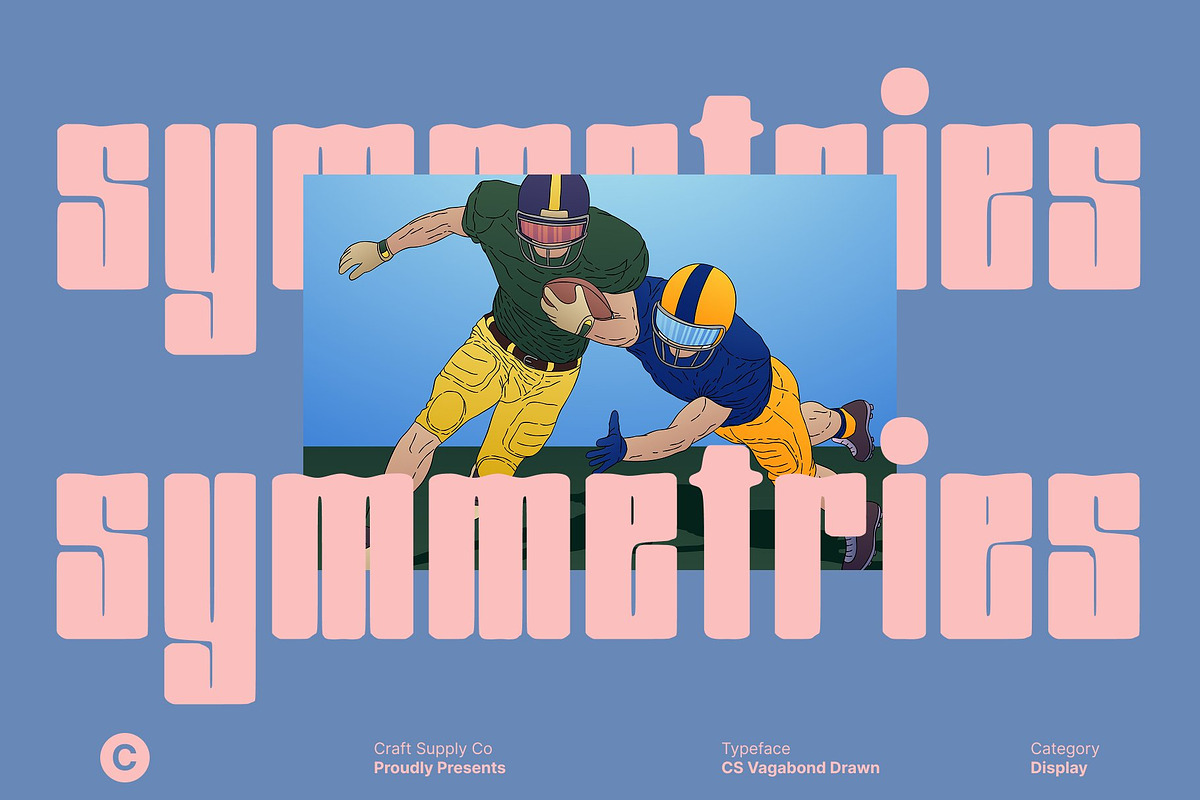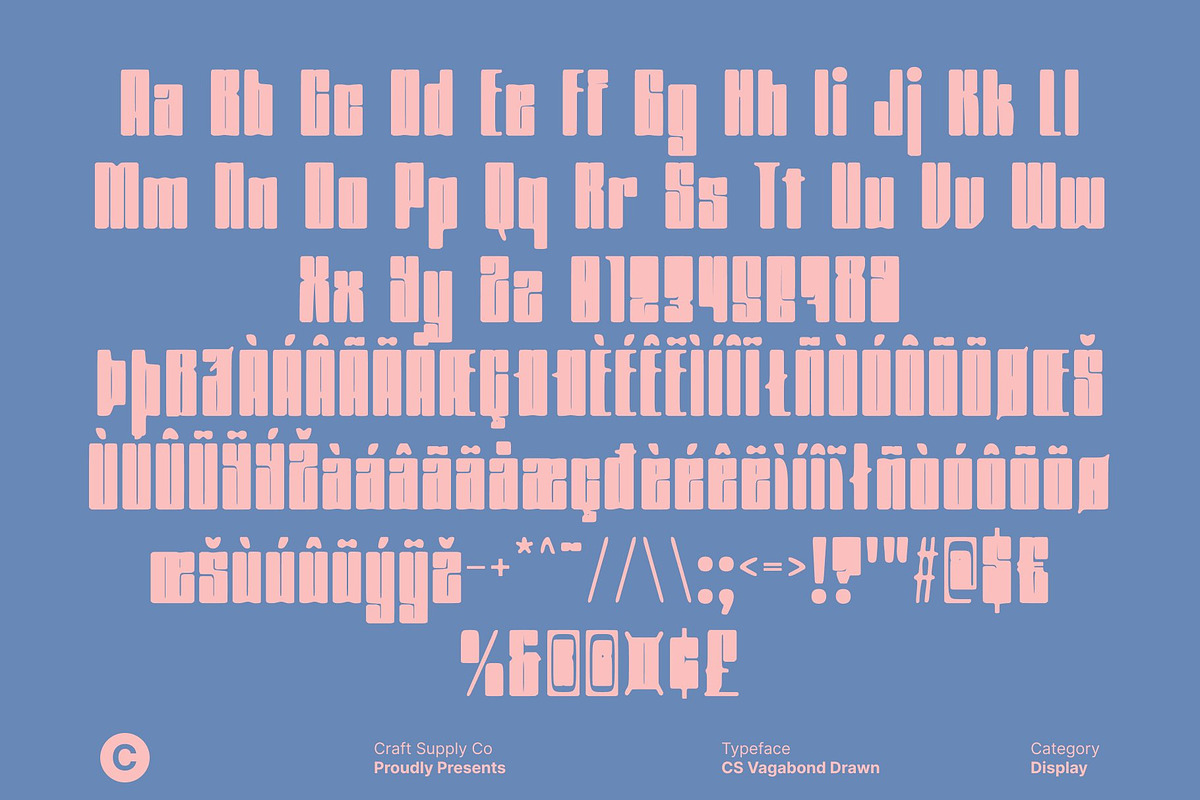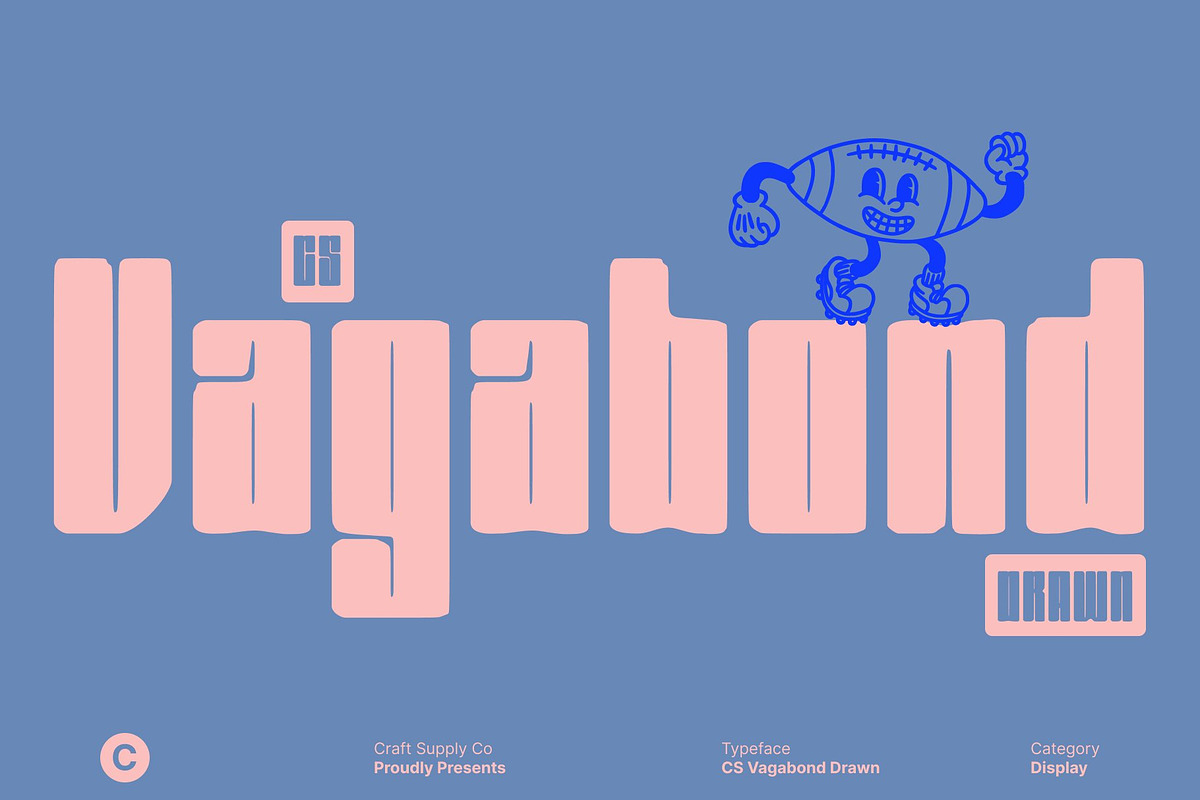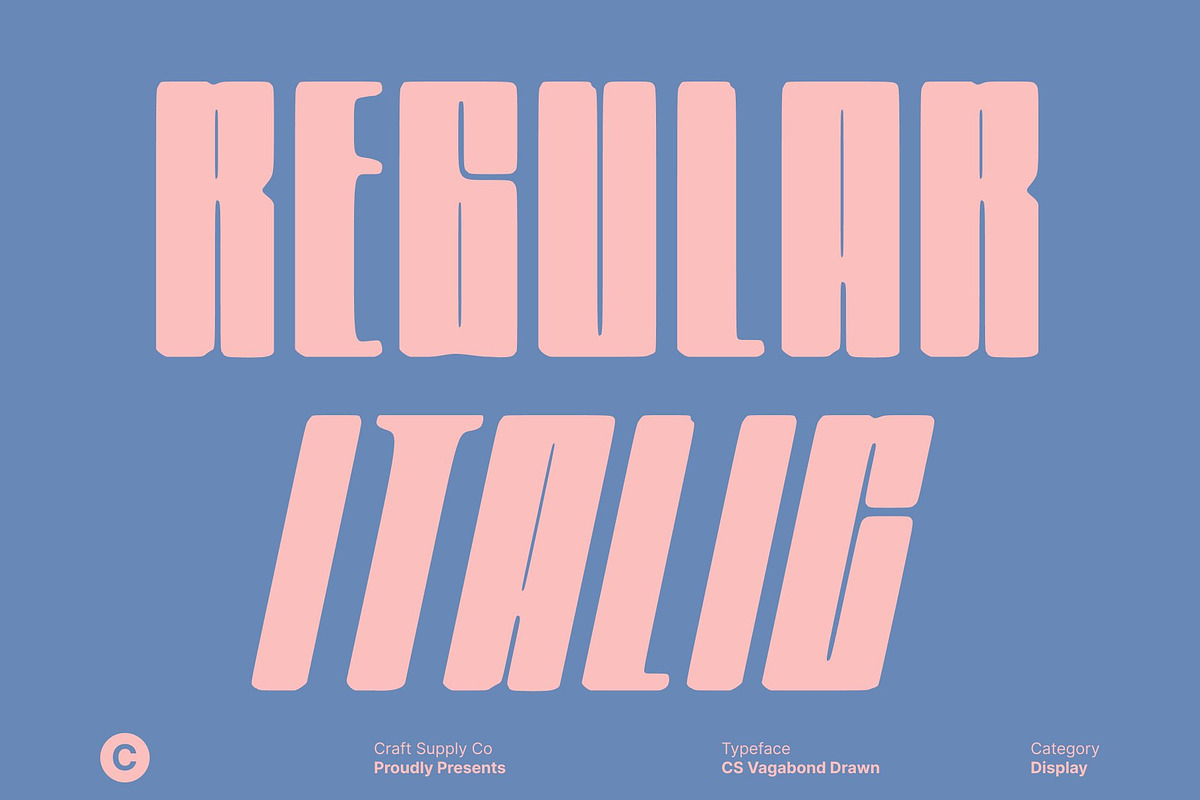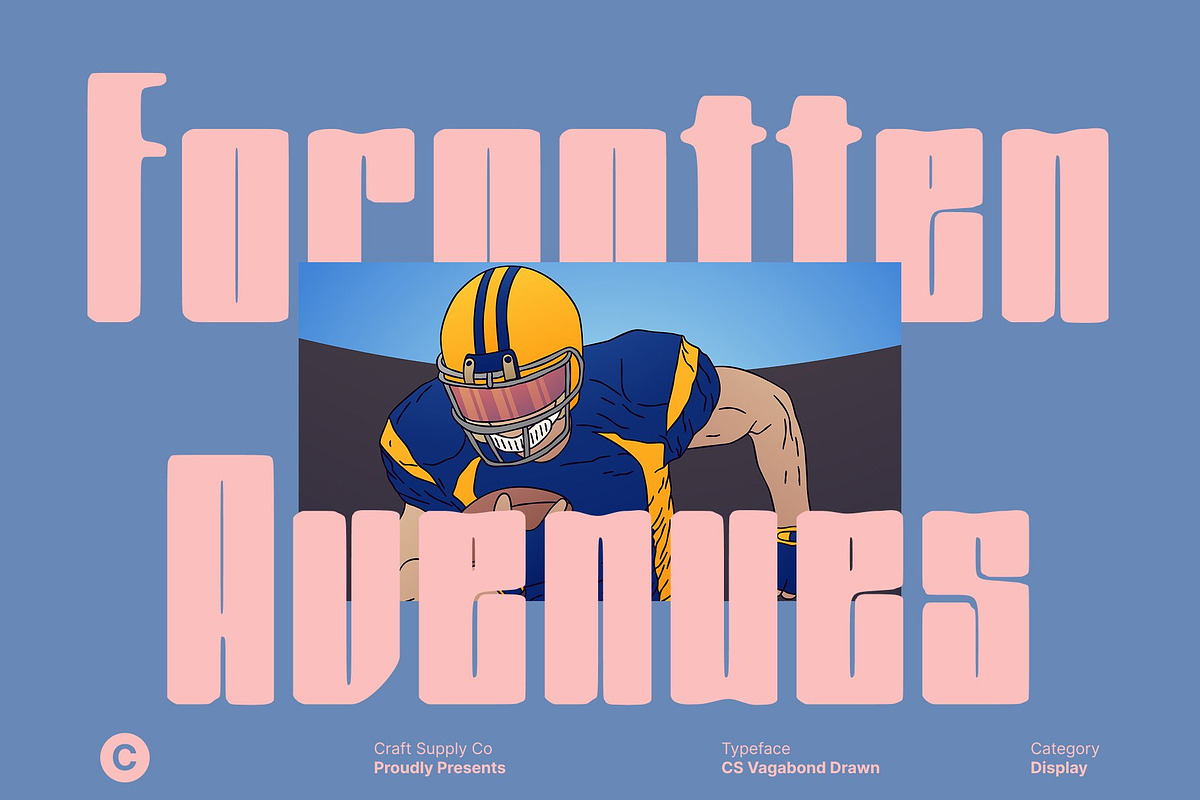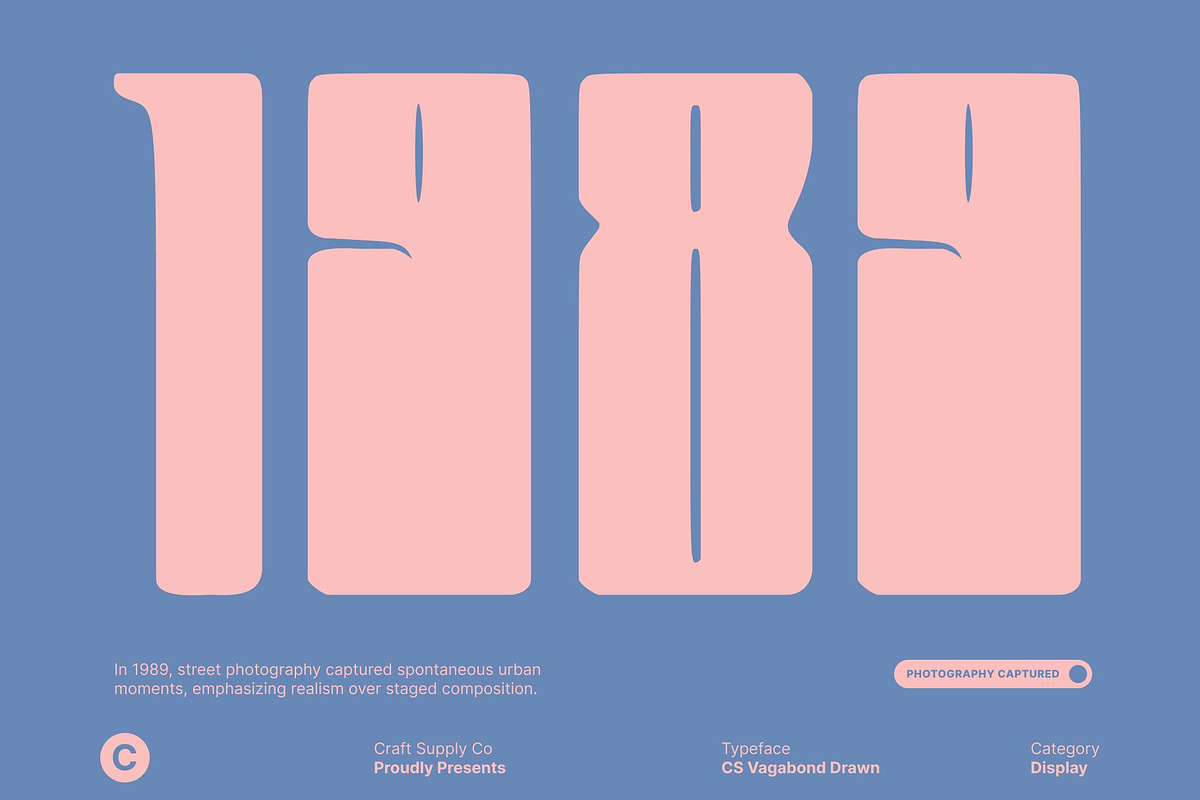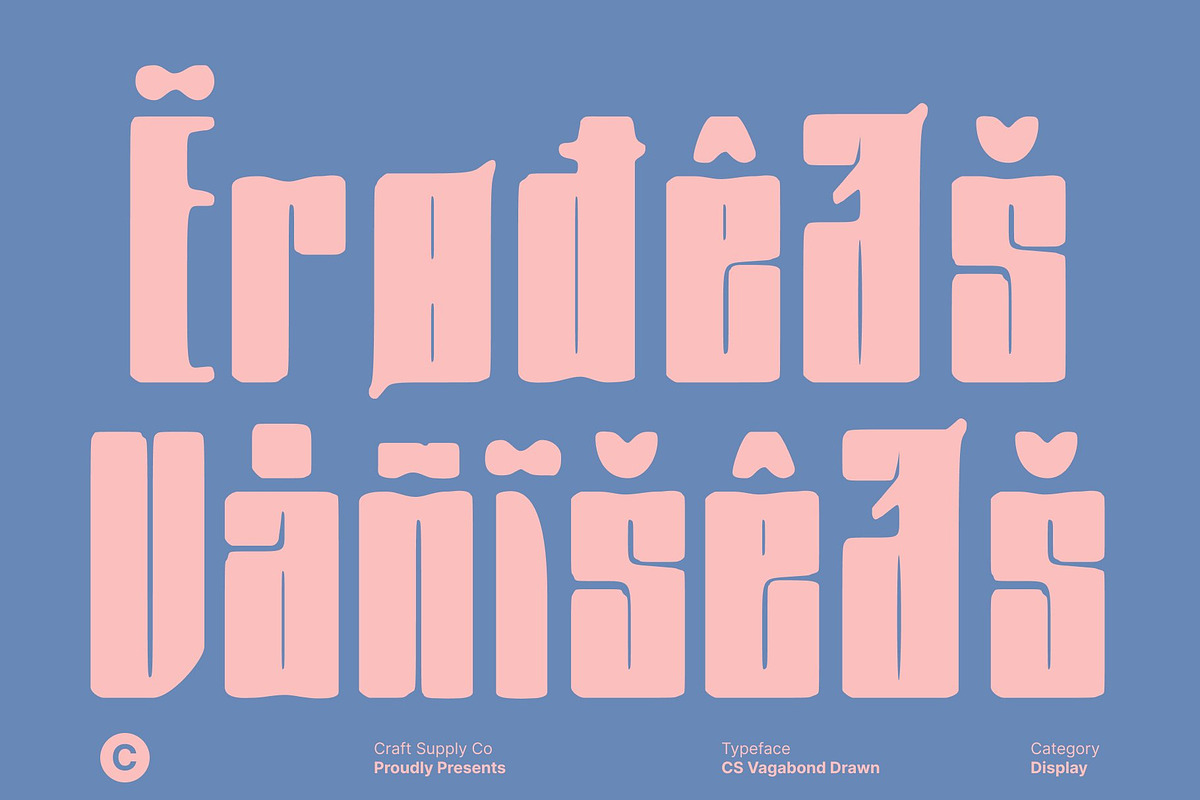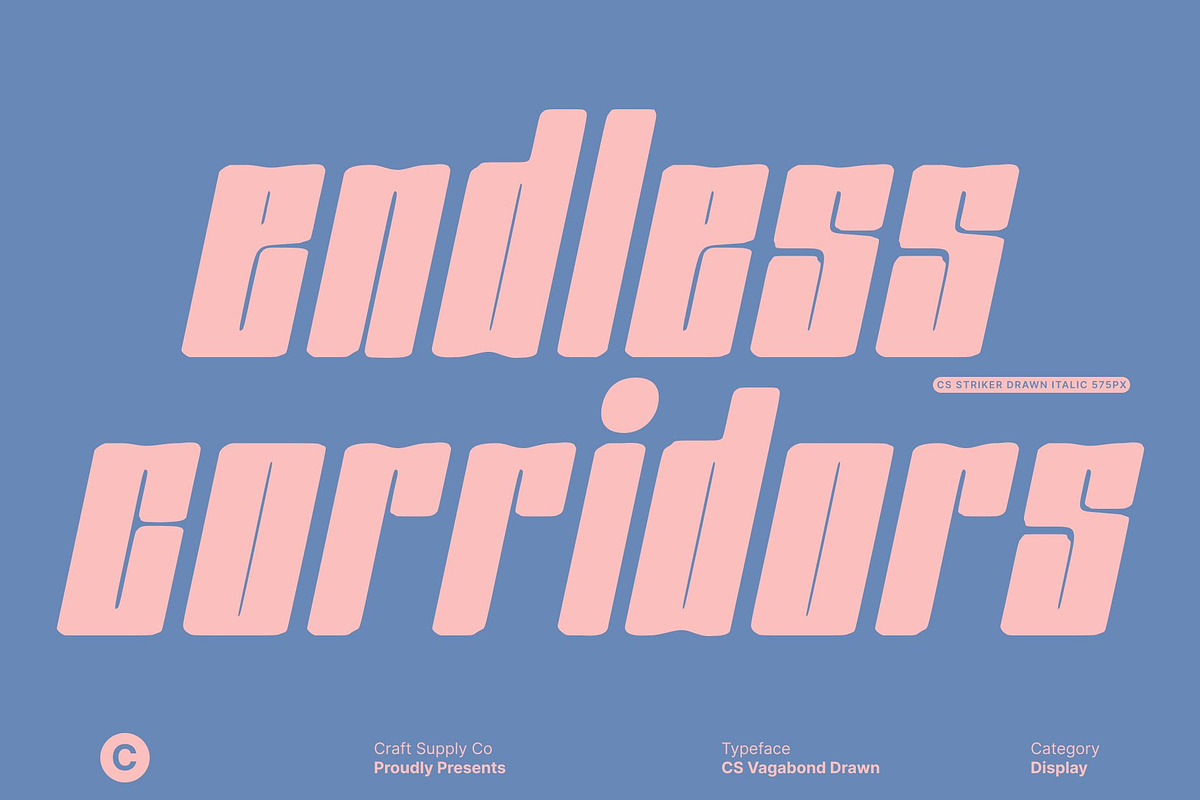
CS Vagabond Drawn
CS Vagabond Drawn – Condensed Sans Serif with Artistic Texture
Bold and Compact Display This is a strong, blocky, and modern condensed sans serif font designed to deliver maximum visual impact in tight spaces. Its powerful and assertive forms make it perfect for headlines, posters, branding, and any design that demands a bold presence. The condensed structure allows for efficient use of space without sacrificing readability, ensuring text remains clear and commanding.
Hand-Drawn Effect for Artistic Texture The drawn effect gives this font a unique, handcrafted texture that enhances its personality. Subtle irregularities and organic lines add a sense of authenticity and artistic flair, making each character feel dynamic and expressive. This handmade quality elevates the font beyond traditional sans serif styles, giving projects a distinctive, eye-catching character.
Strong and Readable Letterforms With its bold strokes and clean geometric shapes, ensures clarity while maintaining a modern, edgy aesthetic. Its blocky design communicates confidence and reliability, making it ideal for both display purposes and impactful typographic statements.
Versatile for Modern Design This font adapts seamlessly across print and digital media, offering versatility for a variety of creative projects. From branding and packaging to posters and editorial layouts, the combination of strong condensed forms and artistic drawn texture ensures every design stands out with style, personality, and contemporary appeal.
- CS Vagabond Drawn Regular
- CS Vagabond Drawn Italic